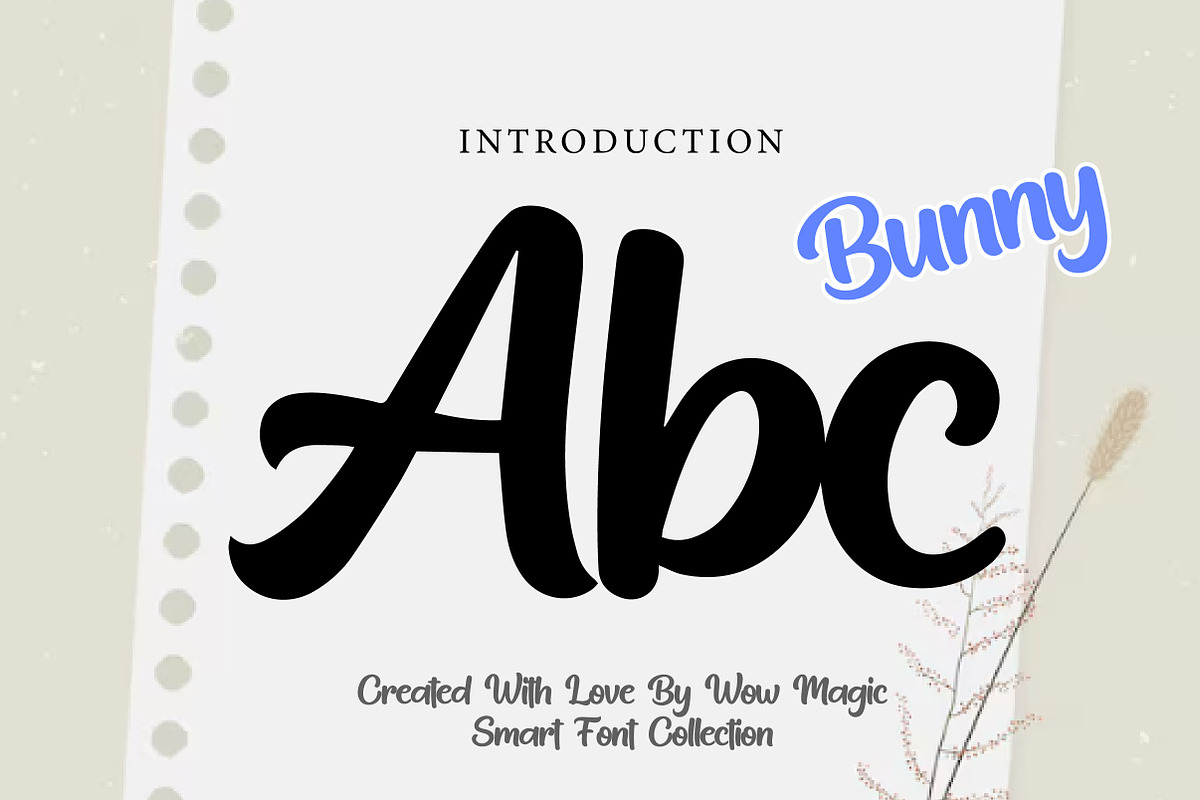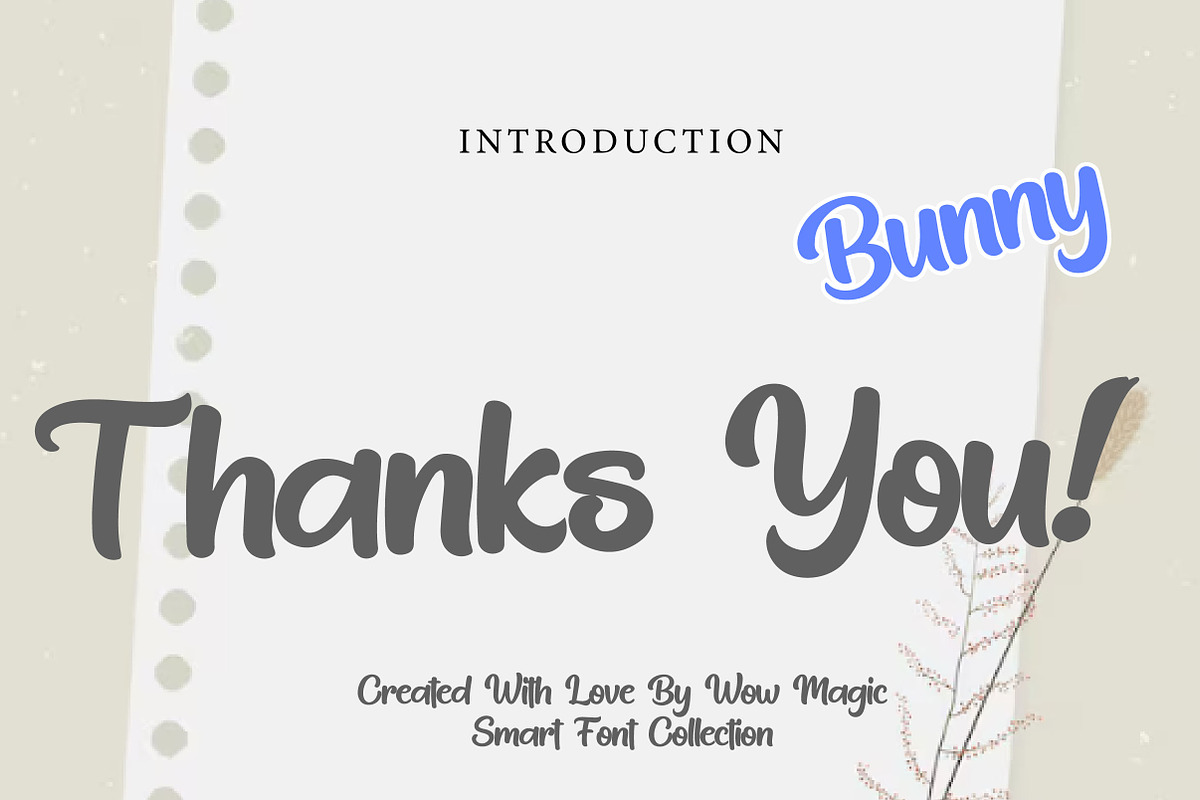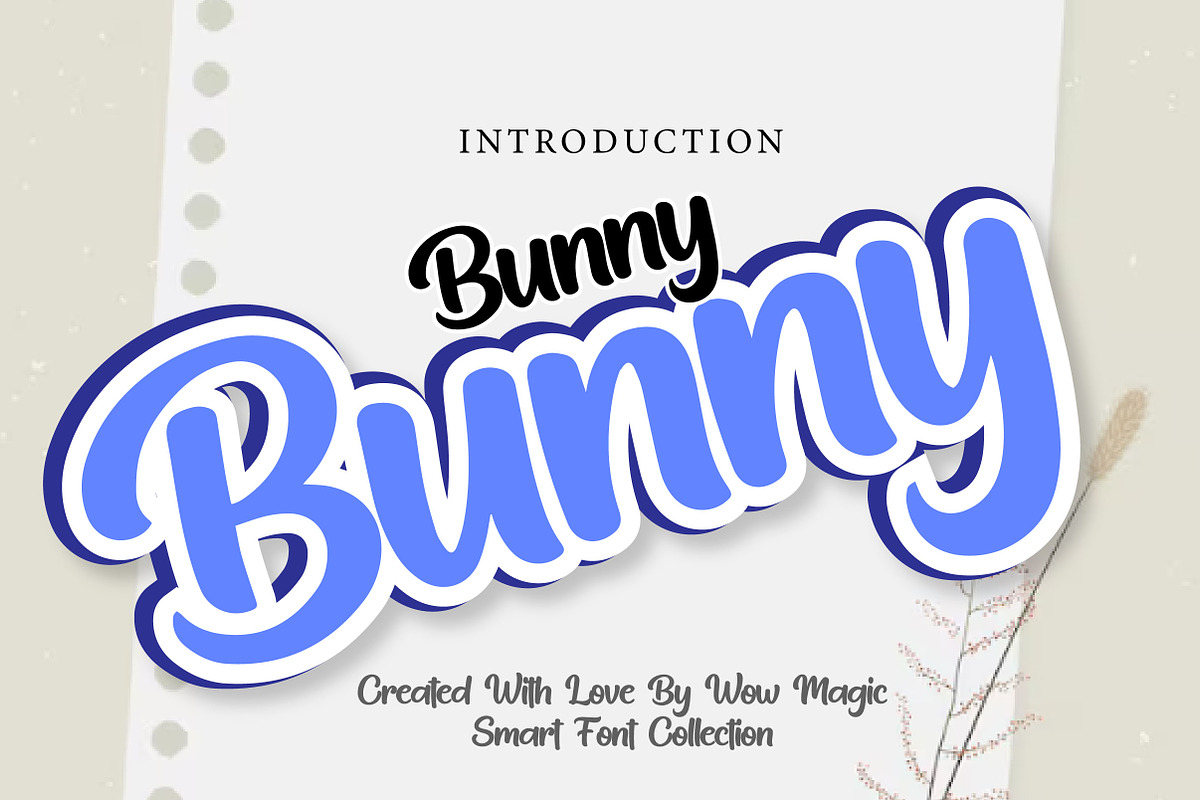
Bunny
Bunny – Cute Bold Script Font
Bunny is a cute, bold, and playful script font with a soft handwritten feel, perfect for kids designs, branding, packaging, invitations, and cheerful creative projects.
Bunny is a sweet and charming bold script font designed to bring warmth, fun, and personality to your designs. With its thick strokes, rounded curves, and smooth flowing shapes, this font creates a playful and lovable look that instantly stands out.
Its soft handwritten style makes Bunny perfect for projects that need a friendly and expressive touch. Whether you are designing kids branding, product packaging, birthday invitations, nursery decor, posters, social media graphics, or cute logo concepts, this font helps your typography feel more cheerful, memorable, and full of charm.
The bold structure keeps your text eye-catching and easy to read, while the rounded letterforms add a warm and approachable personality. Suitable for both print and digital use, Bunny is a wonderful choice for designers who want a font that feels playful, cute, and full of joy.